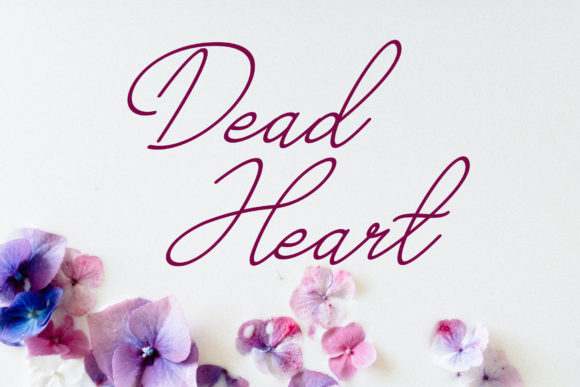
Immerse yourself in the world of Dead Heart Font, a captivating script font brimming with elegance and charm. Its slender strokes and graceful curves evoke a sense of timeless beauty, inviting you to craft designs that speak to the heart. Whether you're designing wedding invitations, heartfelt letters, or eye-catching social media posts, Dead Heart Font is the perfect choice to add a touch of sophistication and romance to your creations.
Unleash your creativity with Dead Heart Font, a font that embodies the essence of love. Its delicate lines and flowing characters capture the essence of romance, making it an ideal choice for creating designs that express deep emotions and heartfelt messages. Let your words take center stage as Dead Heart Font lends its graceful touch to your creations, leaving a lasting impression on the hearts of your readers.
Transport yourself to a realm of enchantment with Dead Heart Font, a font that sparks imagination and fuels creativity. Its enchanting style invites you to create designs that captivate and inspire. Whether you're designing whimsical posters, enchanting invitations, or captivating social media graphics, Dead Heart Font will infuse your work with a touch of magic, leaving your audience spellbound and eager for more.
With Dead Heart Font, discover a font that empowers your designs to make a statement. Its distinctive style commands attention, making it an ideal choice for creating designs that demand to be seen. Craft bold headlines, eye-catching logos, and impactful marketing materials that leave a lasting impression and set you apart from the crowd. Embrace the power of Dead Heart Font and watch your designs rise to new heights.